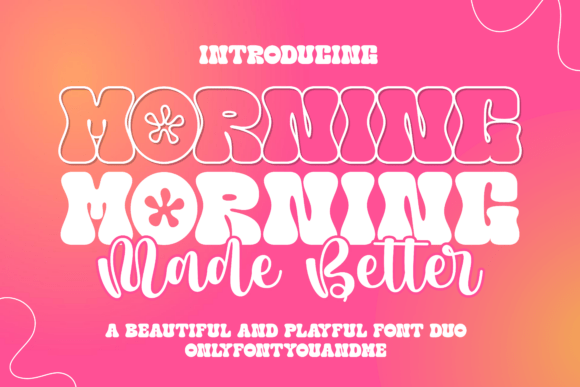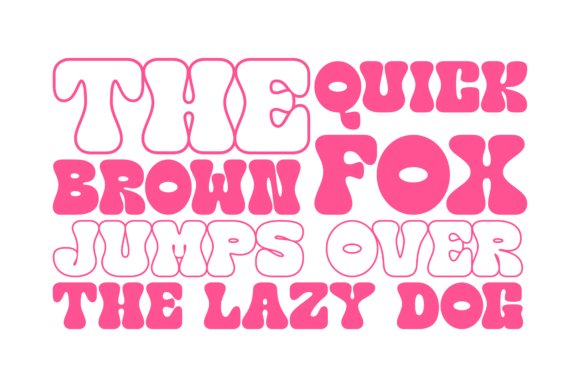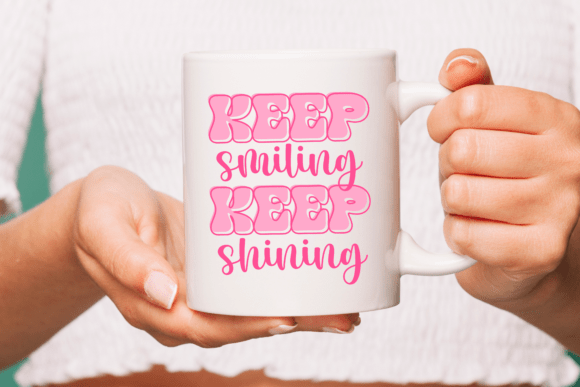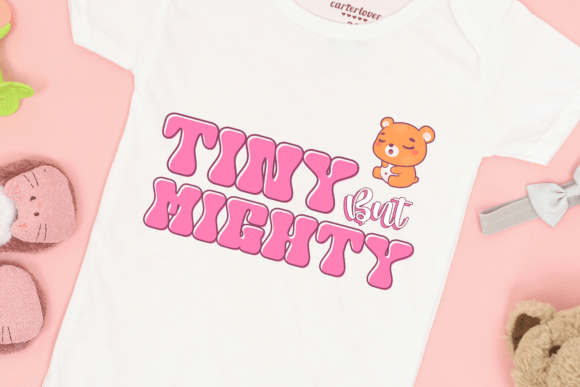
Morning Made Better Font
About the Morning Made Better Font
Elevate your designs with Morning Made Better Font, a font that combines sophistication with readability. “Morning Made Better” features three distinct font styles: regular, outline, and script—each contributing a unique personality to the overall design. The regular style has a bold, rounded, and playful appearance, resembling bubble letters or inflated shapes. It conveys a cheerful and energetic vibe, making it perfect for eye-catching headlines or branding. The outline style uses the same letterforms but with only the contours, creating a lighter, more dimensional look. This variation adds visual contrast along with a slightly retro, modern flair.
The script style brings a sense of warmth and friendliness. With its flowing, hand-lettered strokes, it delivers a personal and approachable feel. This style softens the bold display fonts above, adding an emotional and expressive touch. Altogether, the combination of these three styles forms a visually engaging and lively design—ideal for themes related to lifestyle, food, or wellness